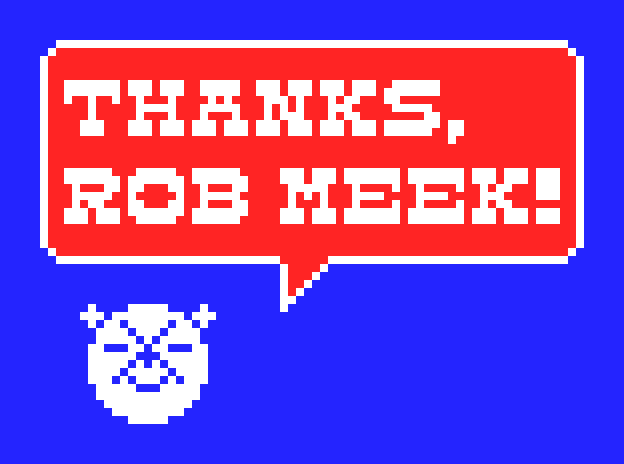
@Plastivore (Francisco Beltrán) - Very nice design.  :^)
I like this pixel-western! 🌵
Congrats! This is a well made pixel Wild West font. :)
This indeed is a very well crafted pixel work, stylish enough to feel unique, yet strikingly effective and very useful.
Excellent pixel slab serif!